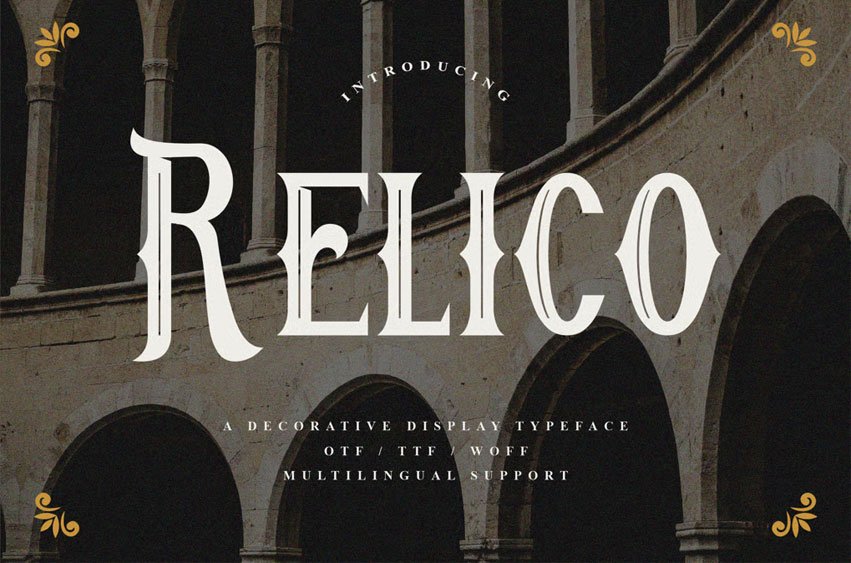
Relico Font is a decorative font that blends vintage charm with modern elegance. Its unique design features intricate details and stylized curves, making it perfect for projects that seek to evoke a sense of nostalgia and sophistication.
Whether used in branding, invitations, or artistic designs, Relico adds a refined yet expressive touch, capturing both timeless beauty and contemporary flair.